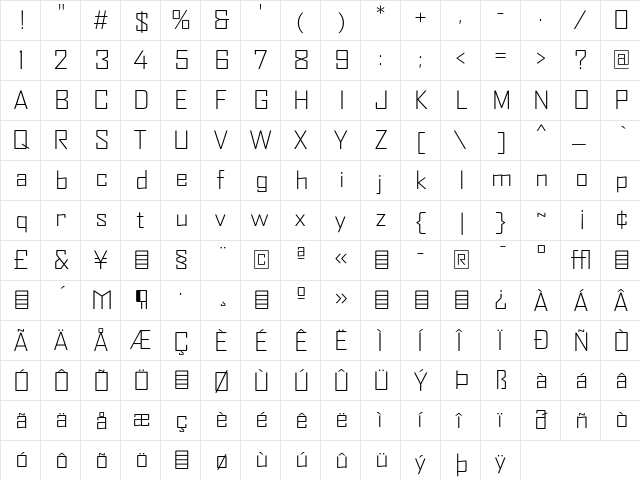
AgencyFBLightWide Regular Font Preview
AgencyFBLightWide Regular
Design Context for AgencyFBLightWide Typeface
AgencyFBLightWide offers clean, dependable letterforms without strong stylistic allegiance, making it a practical choice for designers who need flexibility. Its slender proportions lend an understated elegance to any composition.
Pro Tip: Use AgencyFBLightWide in both headline and body roles to test its range before committing to a single application.